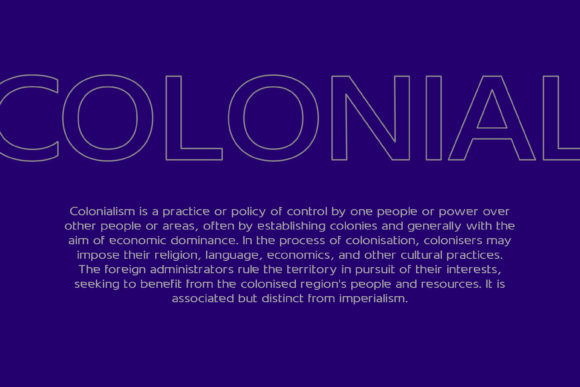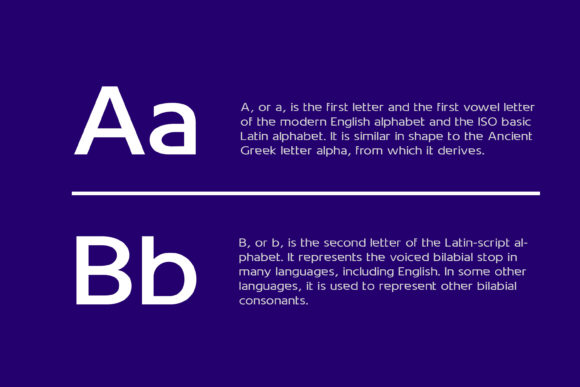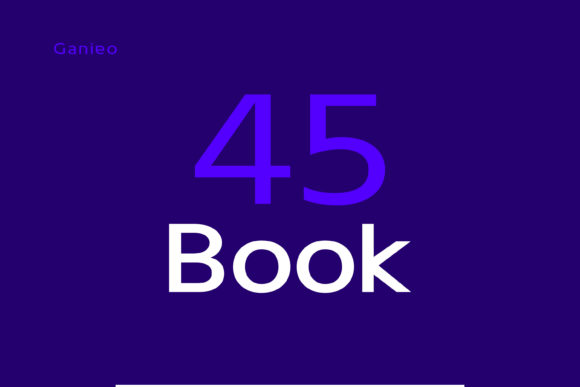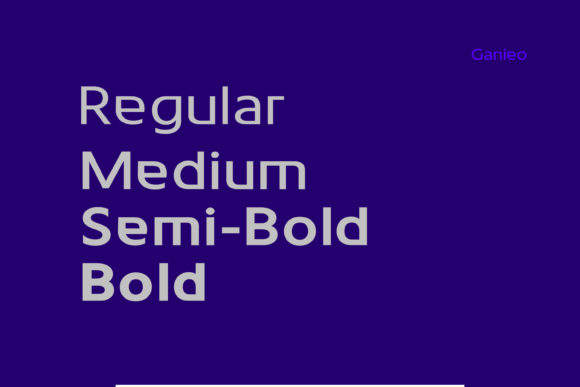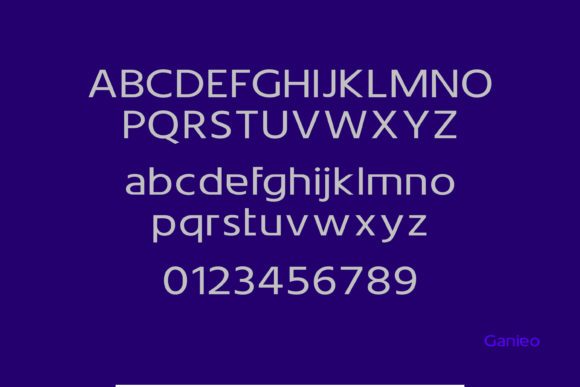
Ganieo Font: The Ultimate Sans Serif for Modern Designs
In the world of typography, fonts play a crucial role in conveying the message and aesthetic of a design. For designers and crafters, finding the perfect font that combines style, simplicity, and versatility can be a daunting task. However, if you’re looking for a modern and sleek sans serif font, look no further than Ganieo Font. In this article, we’ll dive into the features and benefits of Ganieo, and explore why it’s a great addition to your font library.
What is Ganieo Font?
Ganieo is a minimal and simple sans serif font that exudes a sense of modernity and sophistication. Its clean lines, neat characters, and stylish aesthetic make it an excellent choice for designers and crafters looking for a versatile font. Ganieo’s simplicity is its strength, allowing it to adapt to various design contexts, from digital media to print materials.
Key Features of Ganieo Font
- Minimal and Simple Design: Ganieo’s sans serif design is characterized by its minimal and simple aesthetic, making it perfect for modern designs.
- Sleek and Modern Look: The font’s sleek and modern look is ideal for designs that require a contemporary feel.
- Neat and Stylish Characters: Ganieo’s characters are carefully crafted to be neat and stylish, ensuring that your text is always legible and visually appealing.
- Versatile: Ganieo’s versatility makes it suitable for a wide range of design applications, from branding and advertising to packaging and digital media.
Benefits of Using Ganieo Font
- Enhance Readability: Ganieo’s clear and simple design ensures that your text is always readable, making it perfect for body text and headings.
- Elevate Your Brand: With Ganieo, you can create a modern and sophisticated brand image that resonates with your target audience.
- Streamline Your Design Process: Ganieo’s versatility and simplicity make it easy to use and integrate into your design workflow.
- Stand Out from the Crowd: Ganieo’s unique and stylish aesthetic helps your design stand out from the competition, making it perfect for designs that require a distinctive look.
Who Can Benefit from Ganieo Font?
Ganieo Font is an excellent choice for a wide range of designers and crafters, including:
- Graphic Designers: Ganieo is perfect for graphic designers looking for a modern and versatile sans serif font for their designs.
- Digital Designers: Ganieo’s clean and simple design makes it suitable for digital media, such as websites, mobile apps, and social media graphics.
- Packaging Designers: Ganieo’s stylish and modern aesthetic makes it an excellent choice for packaging designs that require a contemporary look.
- Crafters and Makers: Ganieo is also suitable for crafters and makers looking for a simple and stylish font for their DIY projects.
In conclusion, Ganieo Font is an excellent addition to any design library. Its minimal and simple sans serif design, sleek and modern look, and neat and stylish characters make it a versatile font that can adapt to various design contexts. Whether you’re a graphic designer, digital designer, packaging designer, or crafter, Ganieo is an excellent choice for designs that require a modern and sophisticated aesthetic. So, why not give Ganieo a try and elevate your designs to the next level?